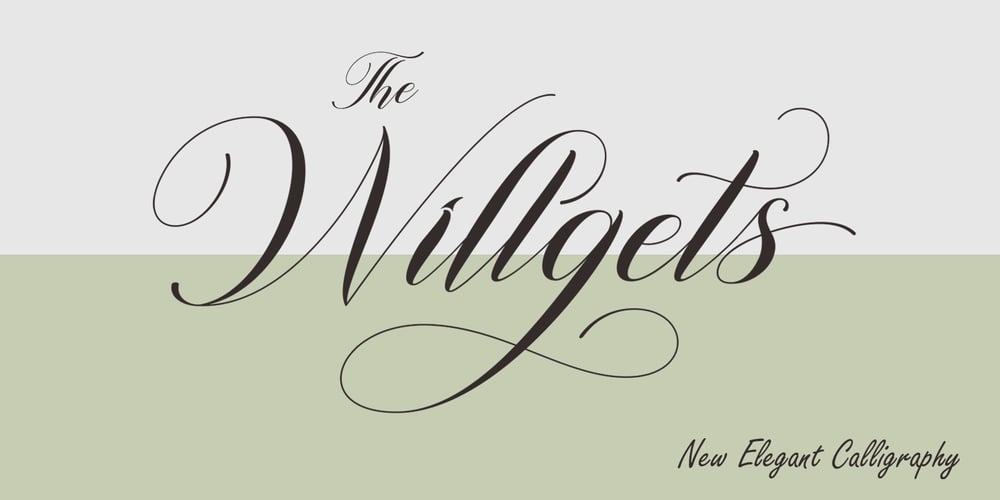
Willgets Calligraphy Font Family was designed by Muhajir Akarim and published by Soft Creative. Willgets Calligraphy contains 1 styles and family package options. Willgets Calligraphy is a classic calligraphy font. This is a classic thin font with an italic style. Here you will get a beautiful classic font. This font is available in several modern swirls that can make your work look elegant, sweet and perfect.